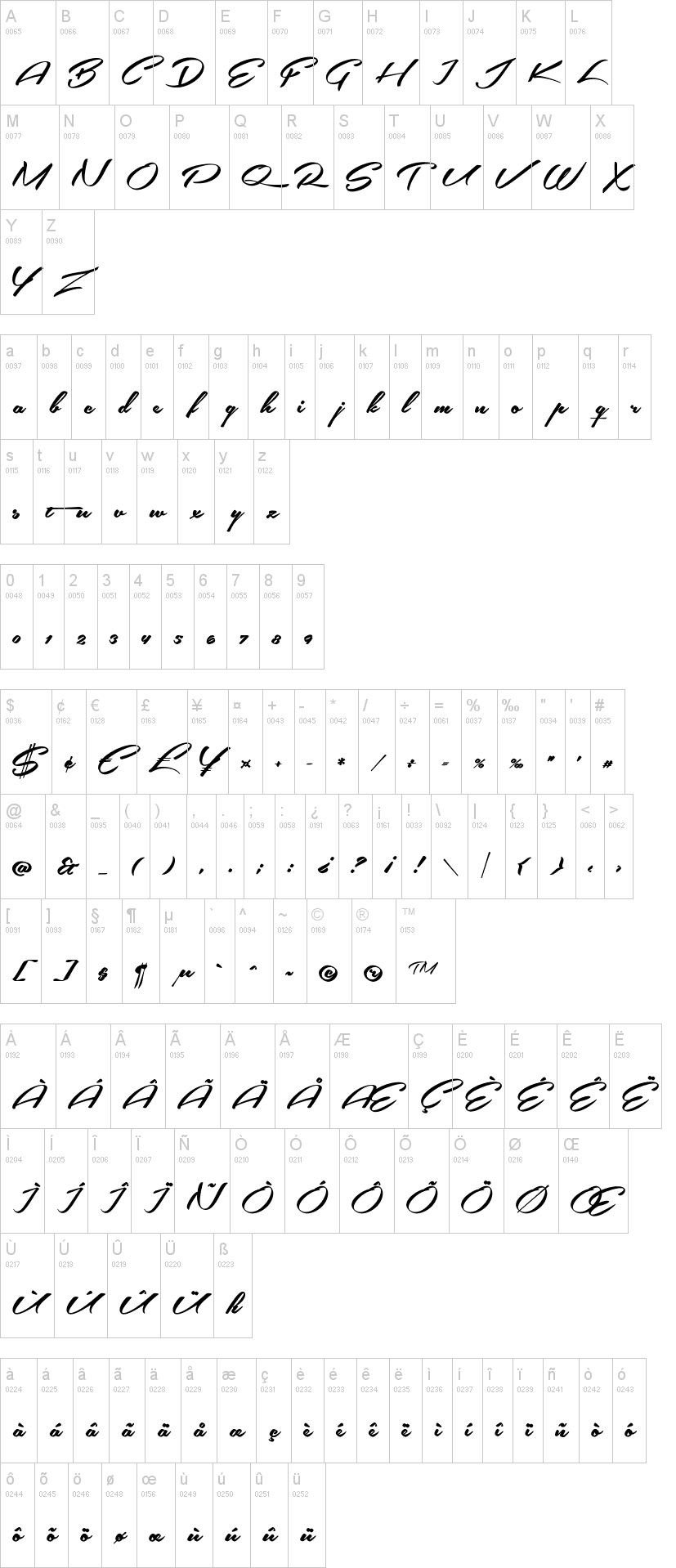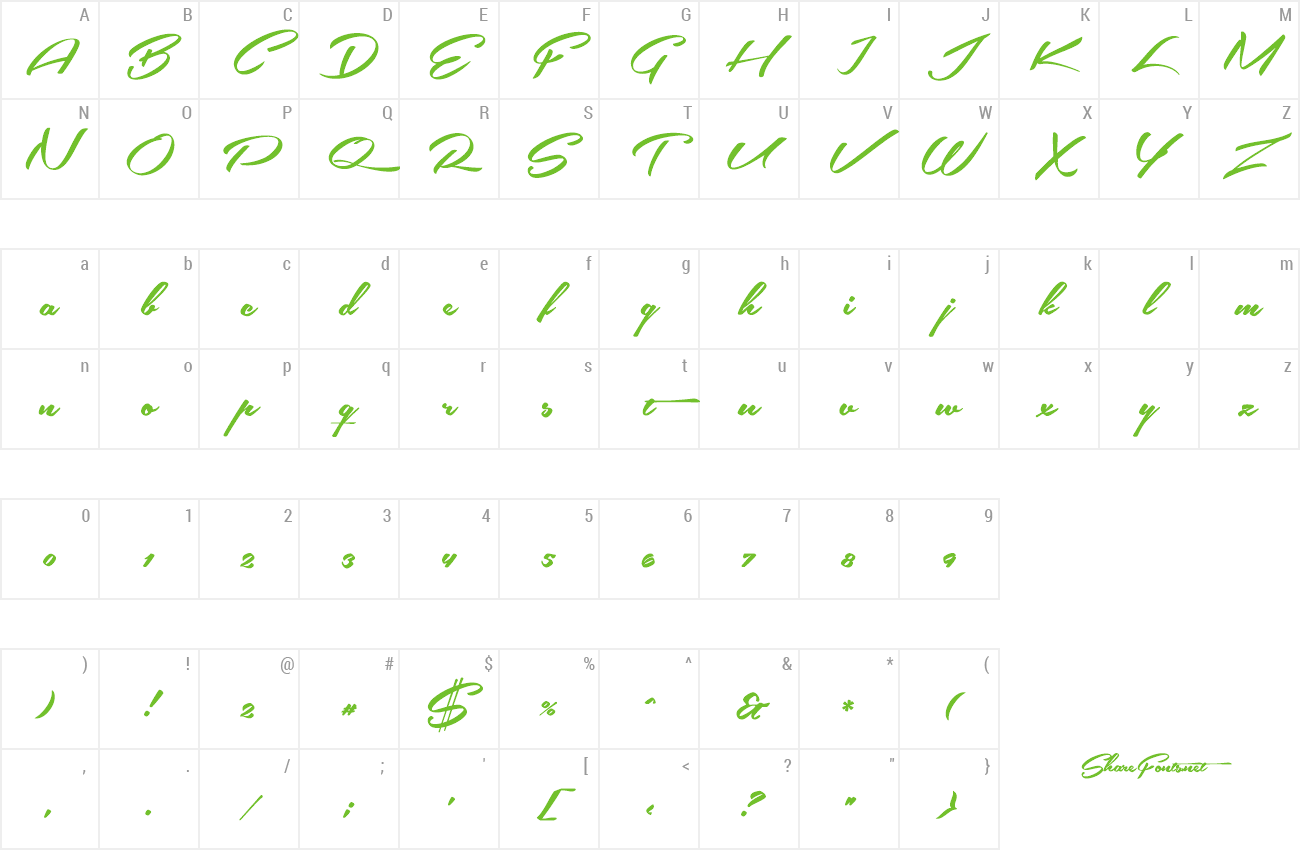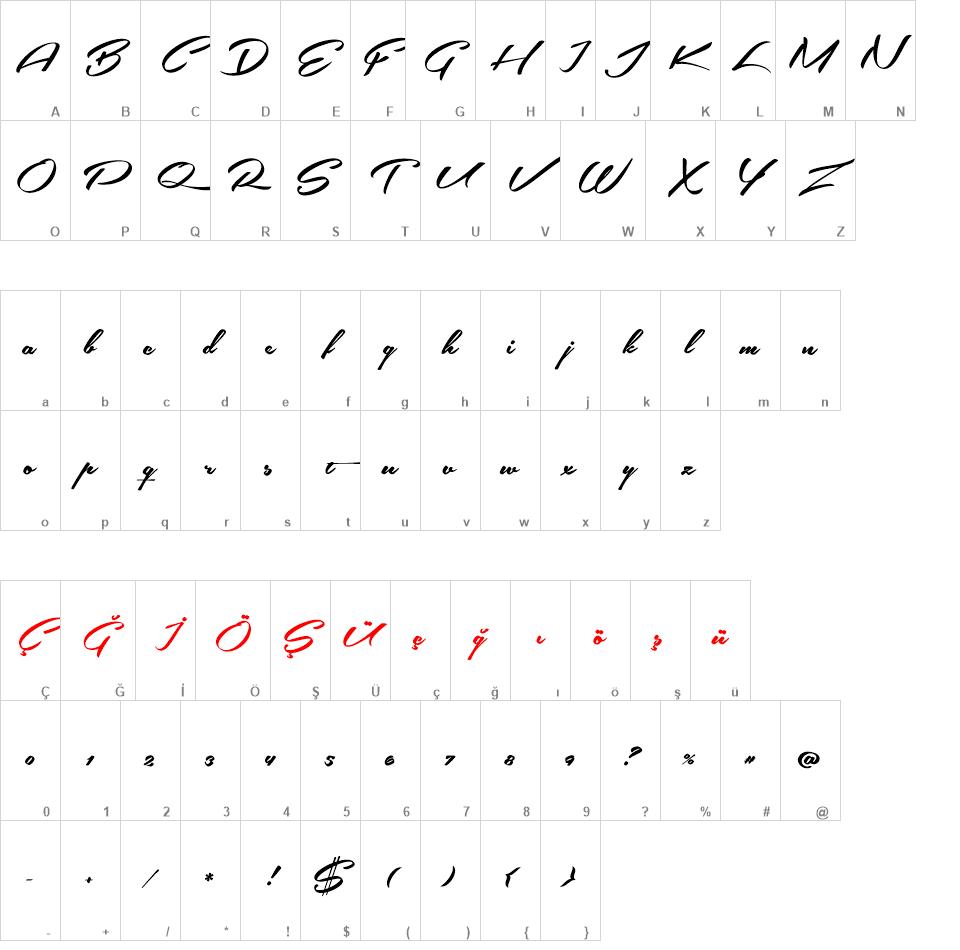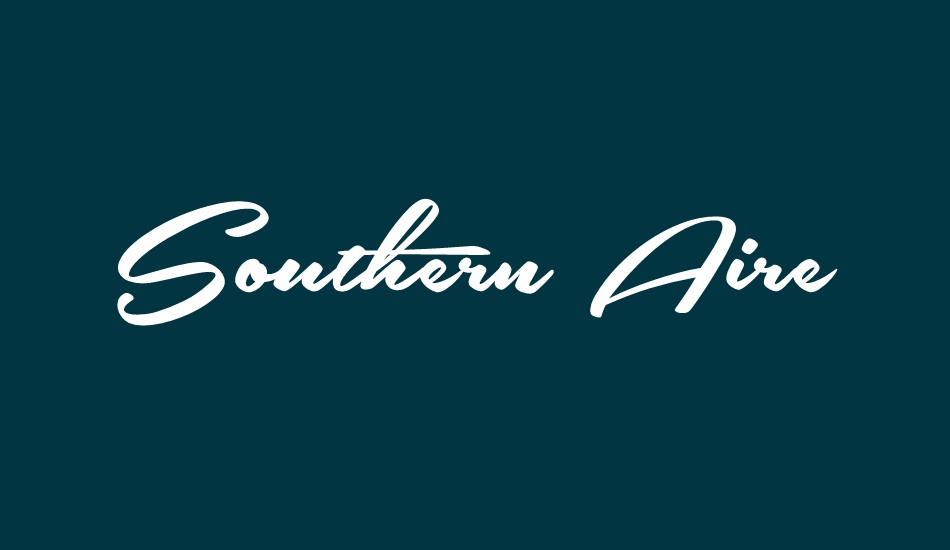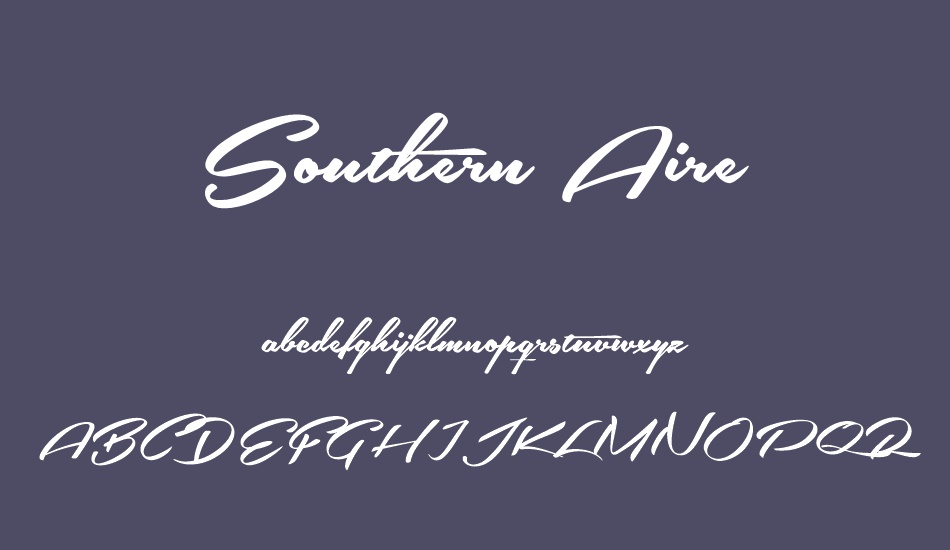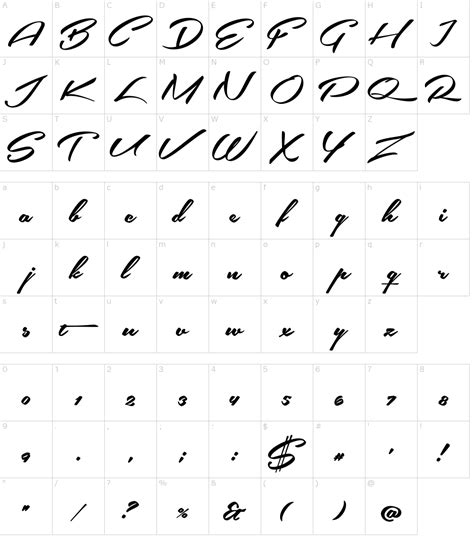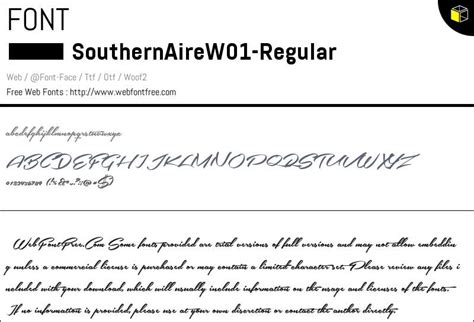
Font Southern Aire
Font Southern Aire - Web southern aire is a free font for personal use created by måns grebäck. Southern aire is a script type font that can be used on any. Category script , cursive ,.
Category script , cursive ,. Southern aire is a script type font that can be used on any. Web southern aire is a free font for personal use created by måns grebäck.
Web southern aire is a free font for personal use created by måns grebäck. Category script , cursive ,. Southern aire is a script type font that can be used on any.
Southern Aire Font
Southern aire is a script type font that can be used on any. Web southern aire is a free font for personal use created by måns grebäck. Category script , cursive ,.
Category script , cursive ,. Southern aire is a script type font that can be used on any. Web southern aire is a free font for personal use created by måns grebäck.
Web southern aire is a free font for personal use created by måns grebäck. Southern aire is a script type font that can be used on any. Category script , cursive ,.
Category script , cursive ,. Southern aire is a script type font that can be used on any. Web southern aire is a free font for personal use created by måns grebäck.
Web southern aire is a free font for personal use created by måns grebäck. Category script , cursive ,. Southern aire is a script type font that can be used on any.
Southern aire is a script type font that can be used on any. Web southern aire is a free font for personal use created by måns grebäck. Category script , cursive ,.
Southern Aire font font
Southern aire is a script type font that can be used on any. Category script , cursive ,. Web southern aire is a free font for personal use created by måns grebäck.
Southern Aire Regular
Web southern aire is a free font for personal use created by måns grebäck. Category script , cursive ,. Southern aire is a script type font that can be used on any.
Web Southern Aire Is A Free Font For Personal Use Created By Måns Grebäck.
Southern aire is a script type font that can be used on any. Category script , cursive ,.